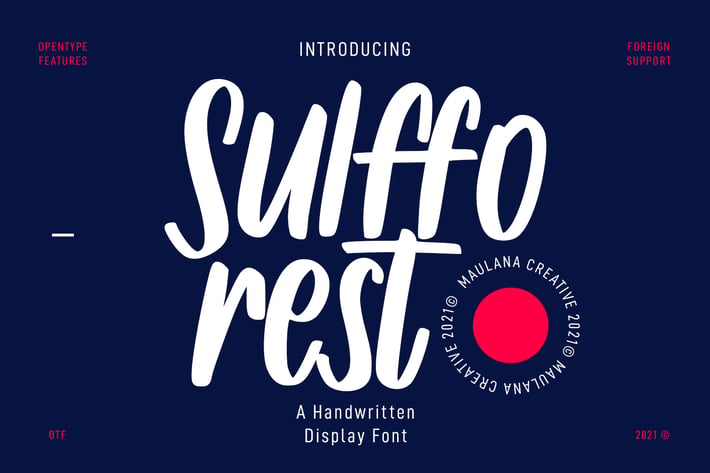
Sulfforest Handwritten Display Font
Sulfforest is a narrow handwritten font. With felt-tip stroke, slant and fun character with a bit of ligatures. To give you an extra creative work. Sulfforest font support multilingual more than 100+ language. This font is good for logo design, Social media, Movie Titles, Books Titles, a short text even a long text letter and good for your secondary text font with sans or serif. Make a stunning work with Sulfforest font.